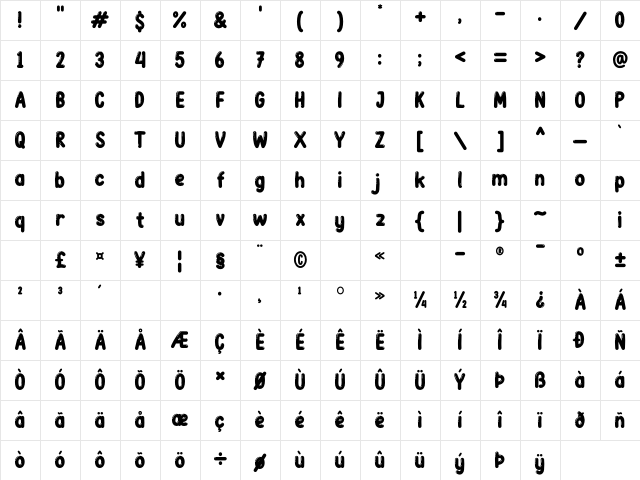
Bubble Bobble Regular
Designer: Almarkha type 2020 - Abdul Malik Wisnu
Design Context for Bubble Bobble
Bubble Bobble has an approachable, lighthearted character - its loose, expressive forms are well-suited to children's content, casual branding, and fun-first design.
Font Pairing: Pairs well with a rounded or humanist sans for body copy, maintaining the friendly tone without relying on Bubble Bobble to carry extended reading.
Pro Tip: Use Bubble Bobble at larger display sizes where its expressive character can land. Pair with a clean, simple sans for body copy to maintain readability.